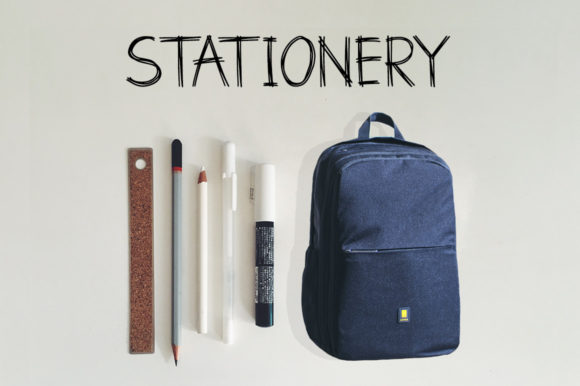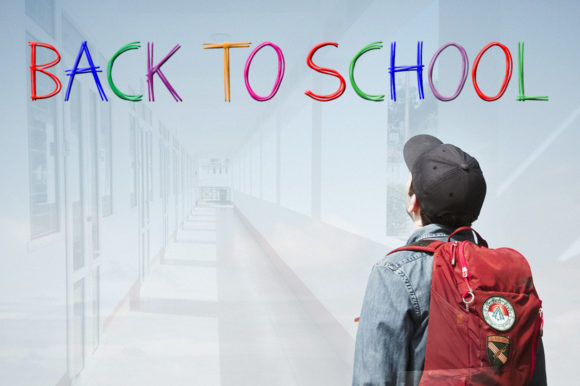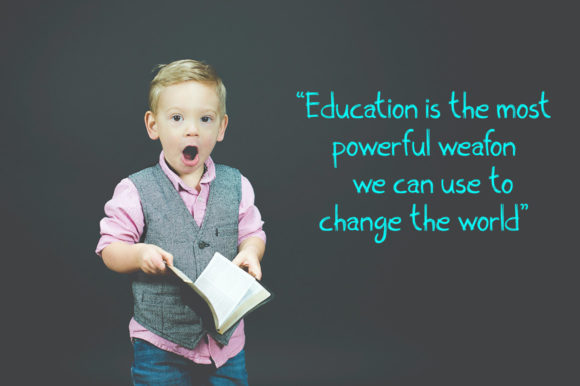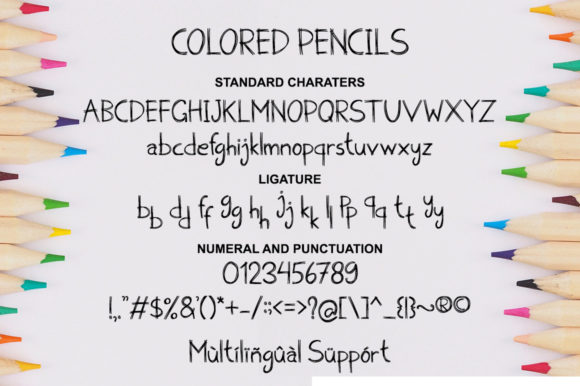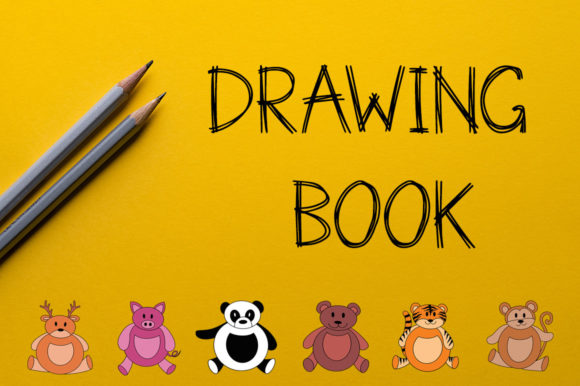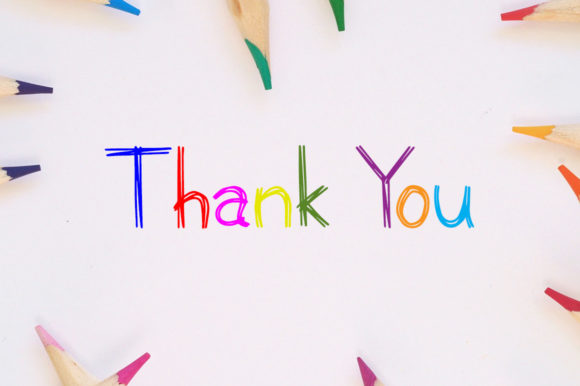
Colored Pencils Font
Colored Pencils is a delightful color font that adds a touch of cuteness and playfulness to your designs. With its school-themed aesthetic, this font is perfect for various projects related to education, children, or any design that needs a fun and vibrant look.
As a color font, Colored Pencils features vibrant colors and textured brush strokes, giving it the appearance of hand-drawn colored pencils. This unique style adds an artistic and whimsical element to your designs, making them visually appealing and captivating.
When incorporating Colored Pencils into your designs, consider its playful and school-themed nature. It’s perfect for creating educational materials, school projects, children’s books, stationery, and other designs aimed at a young audience.
Experiment with different colors, layering effects, and combinations to make your designs stand out. The textured brush strokes and vibrant colors of the font can add depth and visual interest to your projects.
Enjoy the creative possibilities that Colored Pencils offers and let it inspire you to create captivating and charming designs that bring joy to your audience.